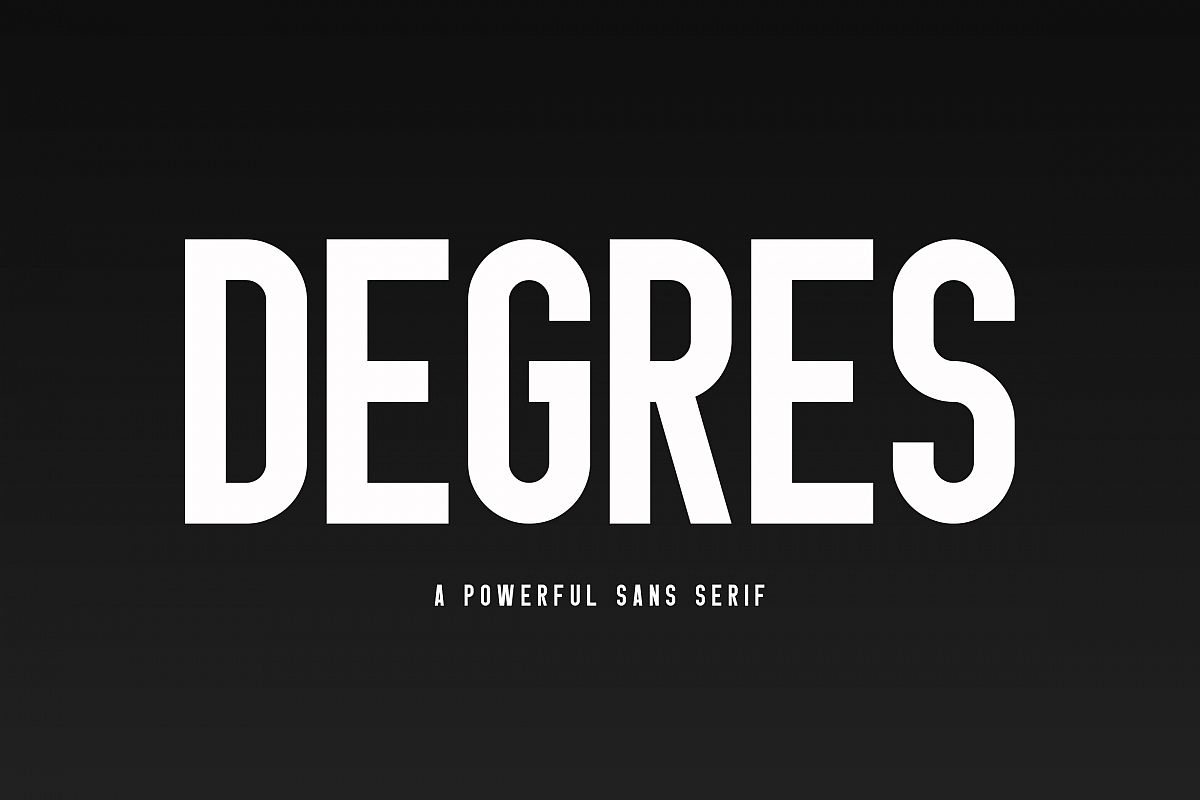
Degres Sans
The Degres Sans is a modern and powerful sans serif font which can be used to give your design a powerful and strong.
It’s perfect for logos, product packaging, branding, headlines, labels,  book covers, posters, quotes and much more. This font is support for international language.